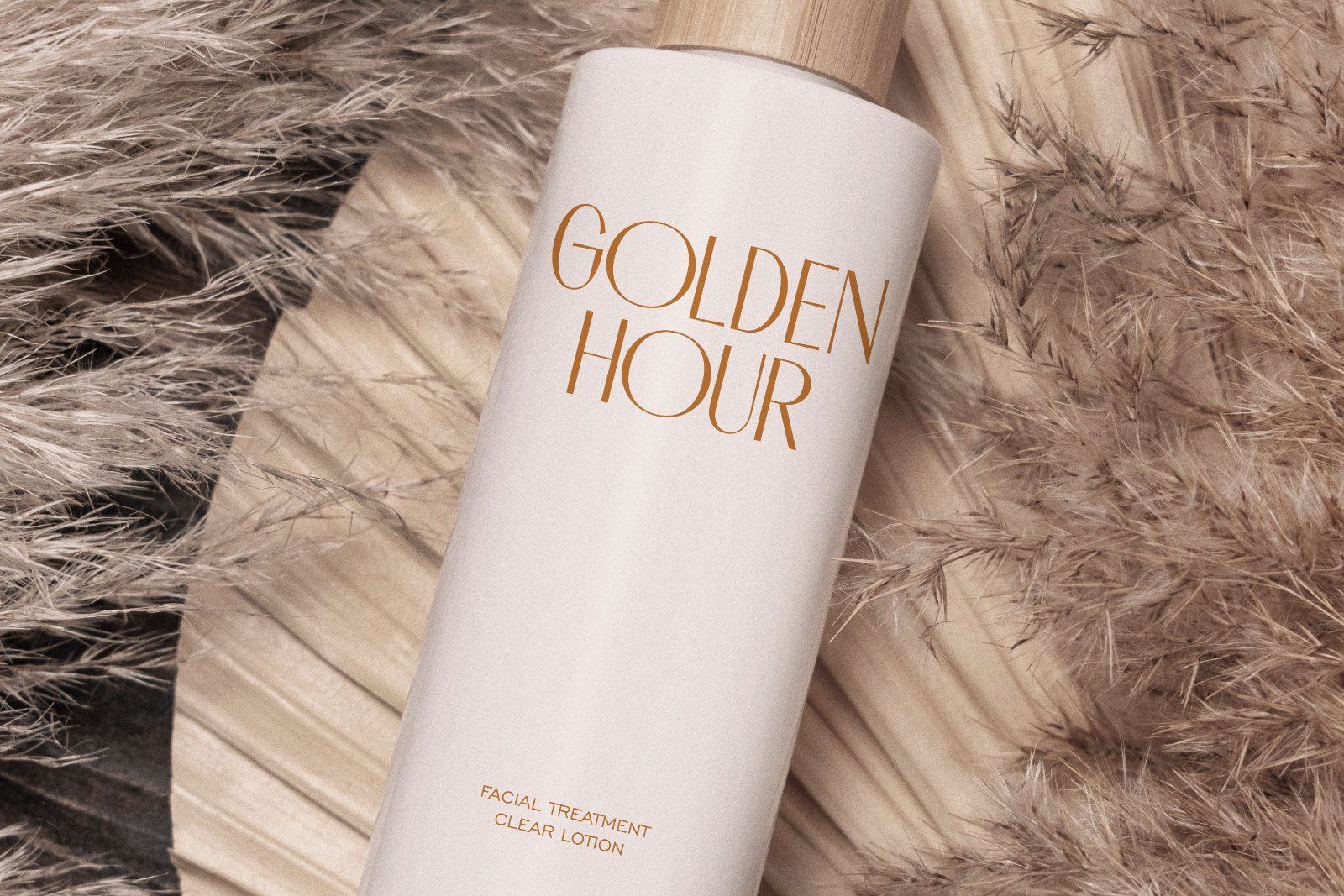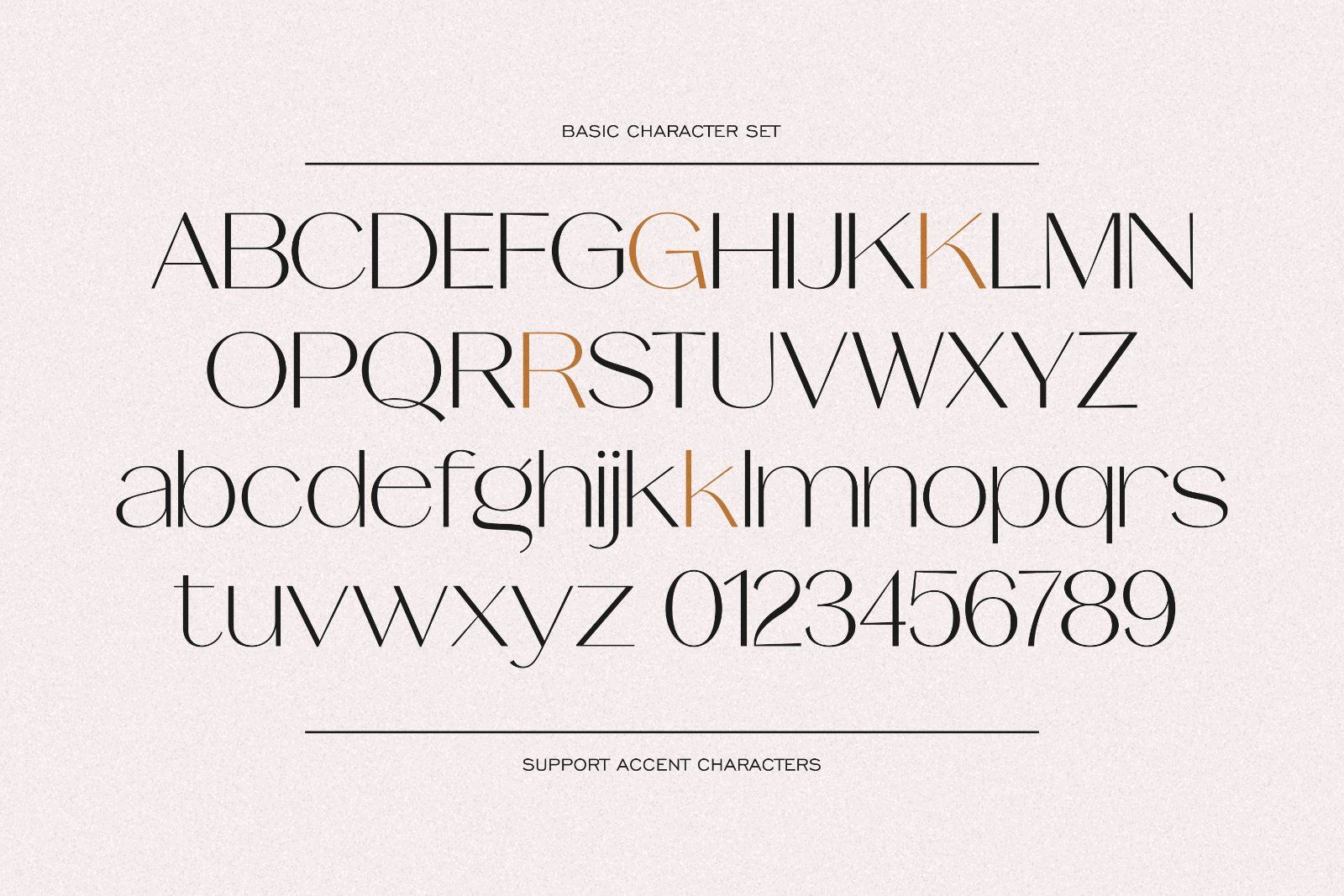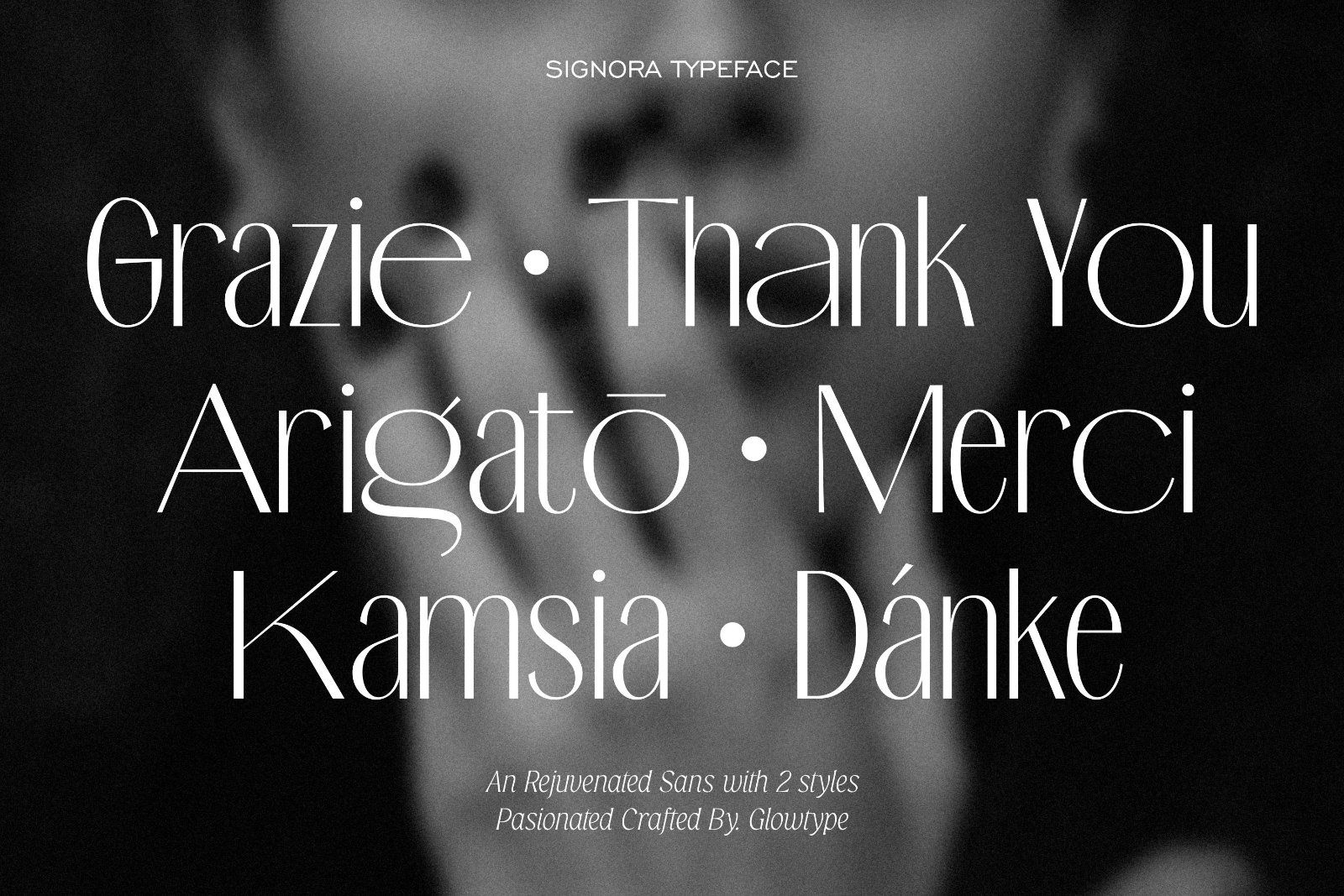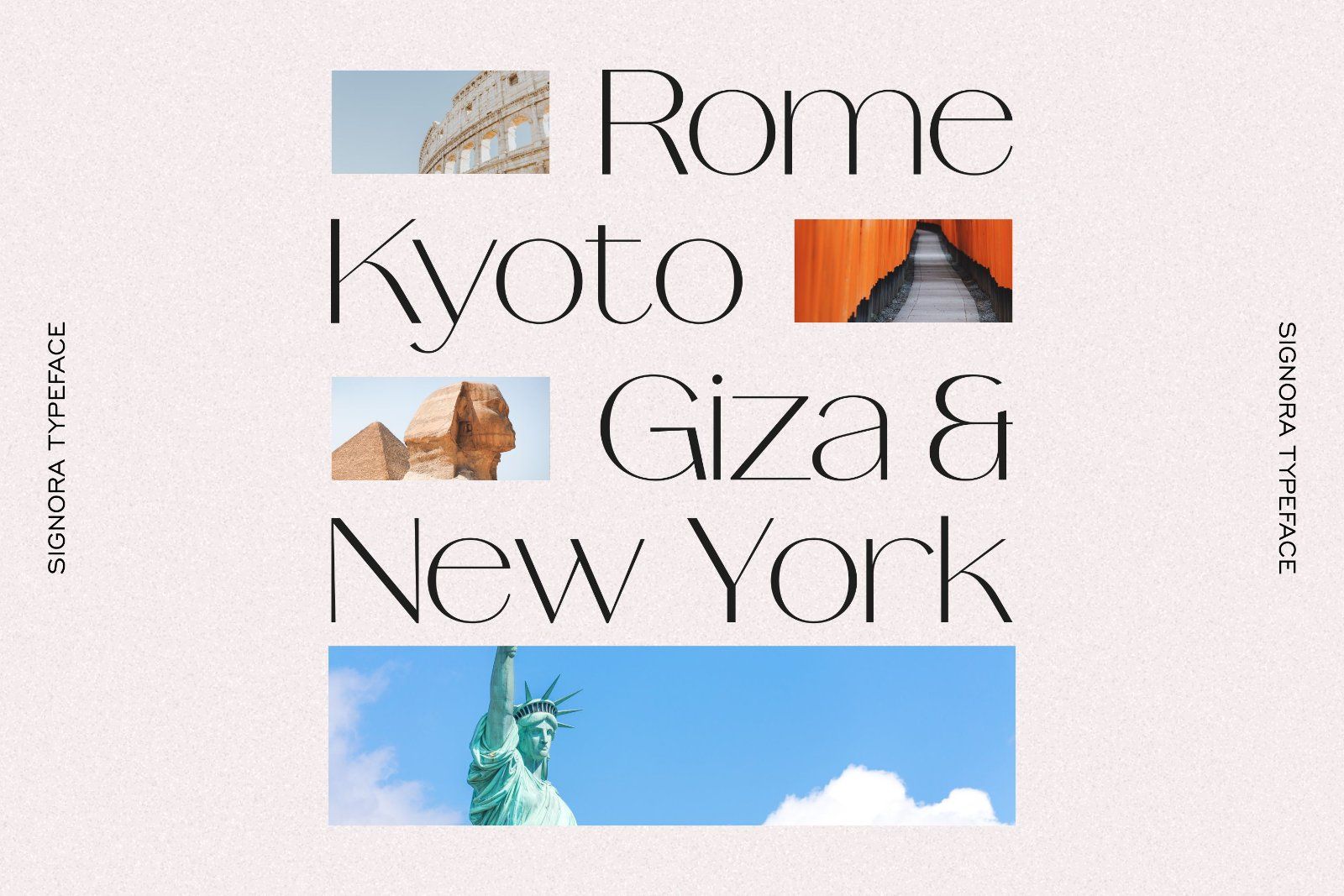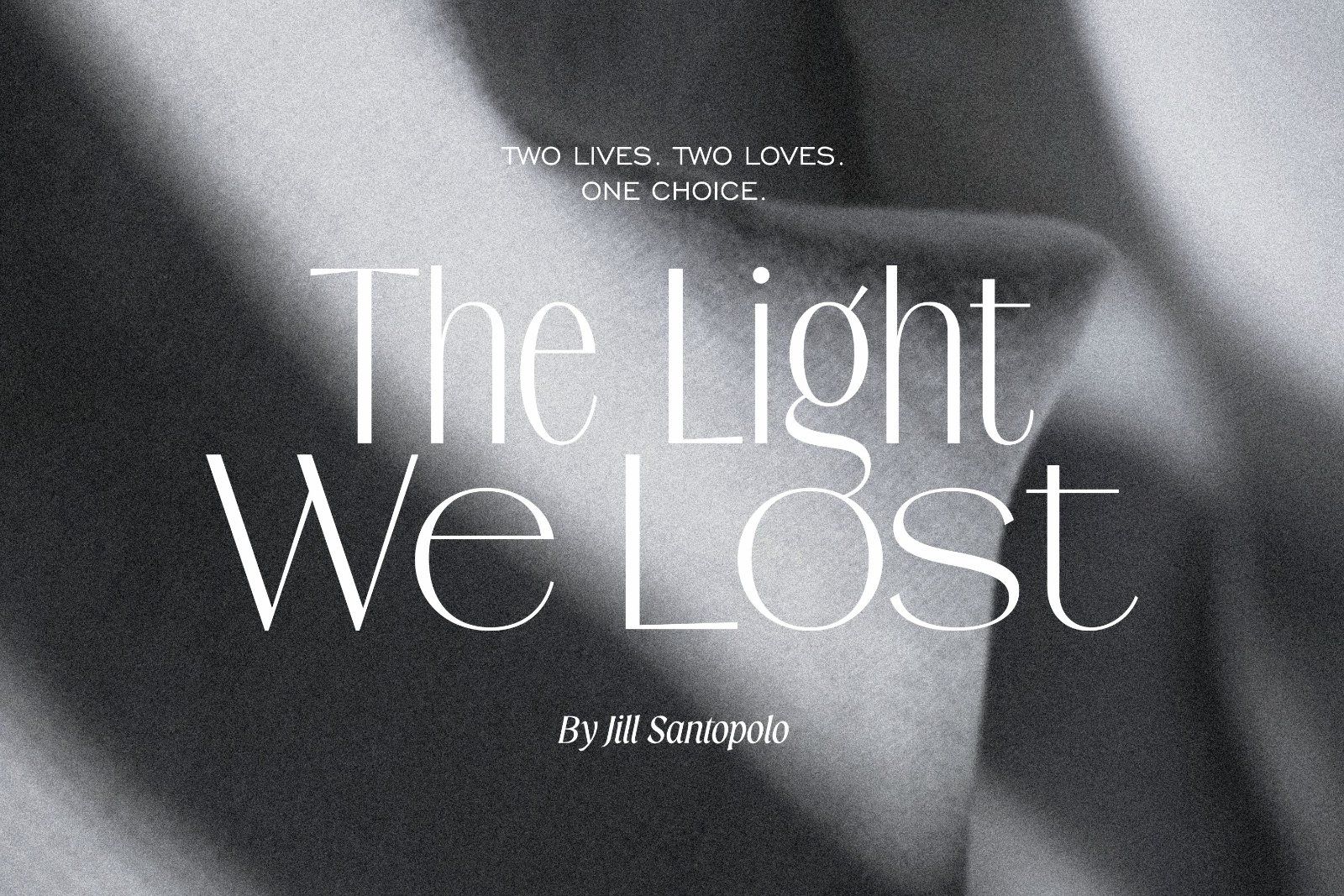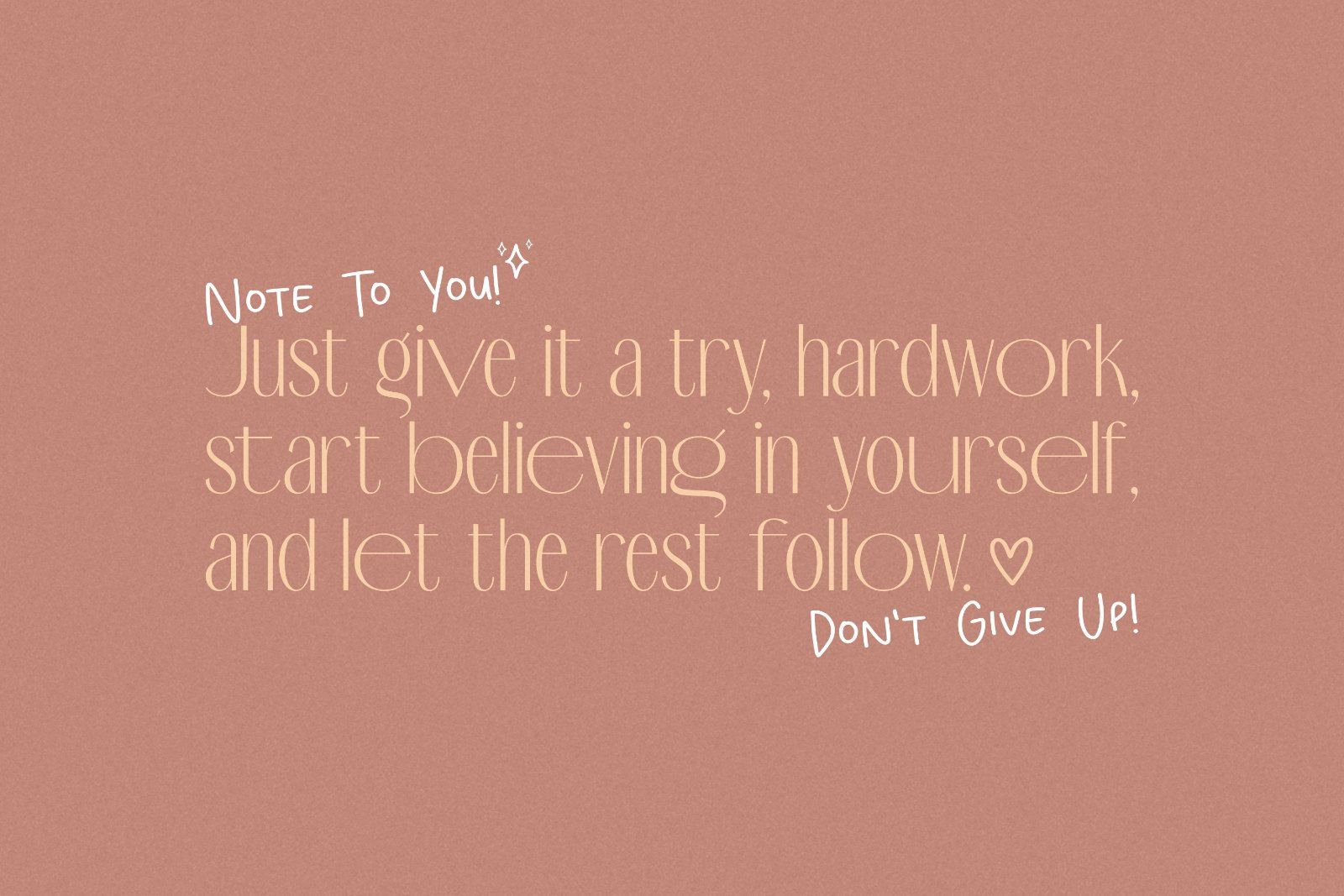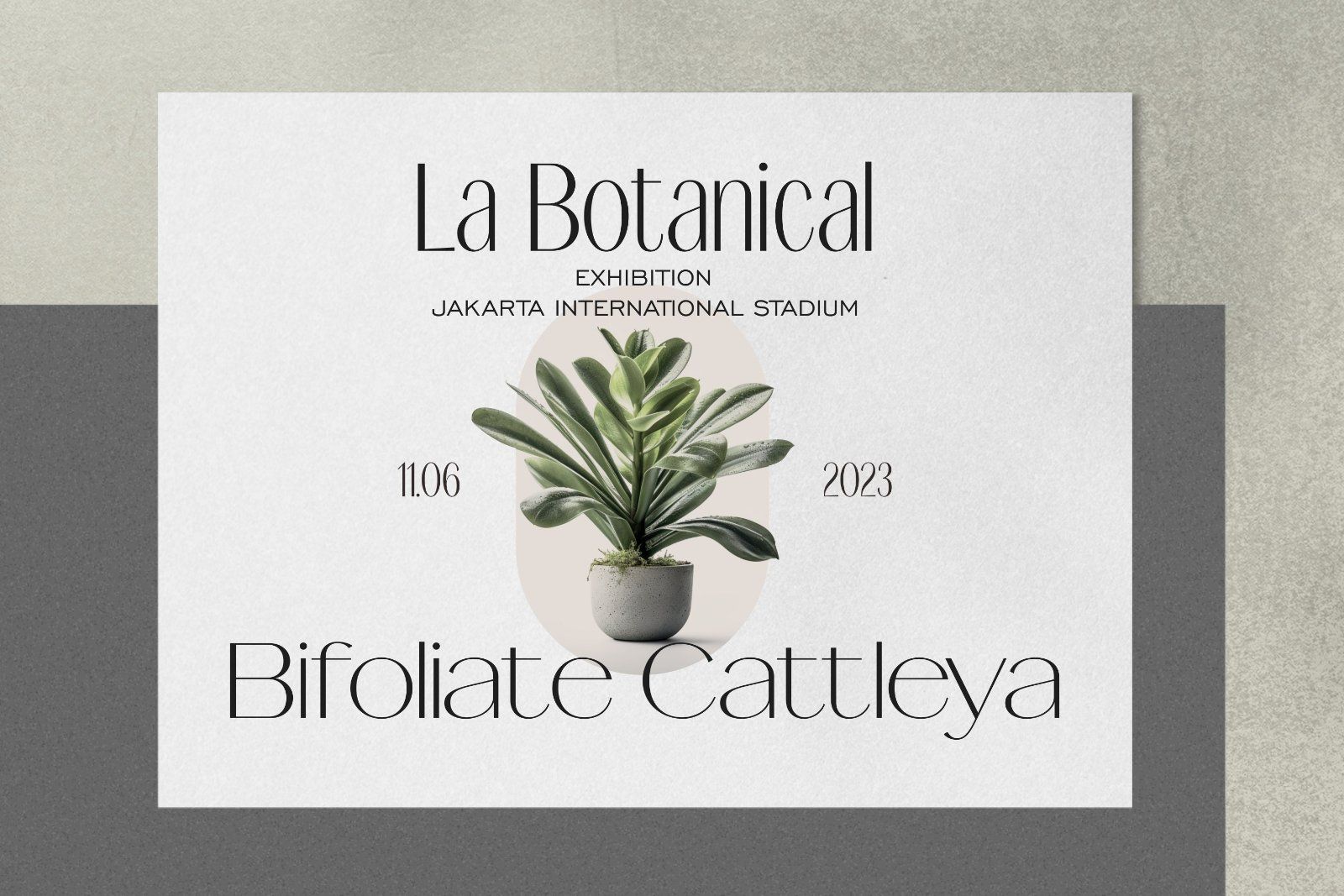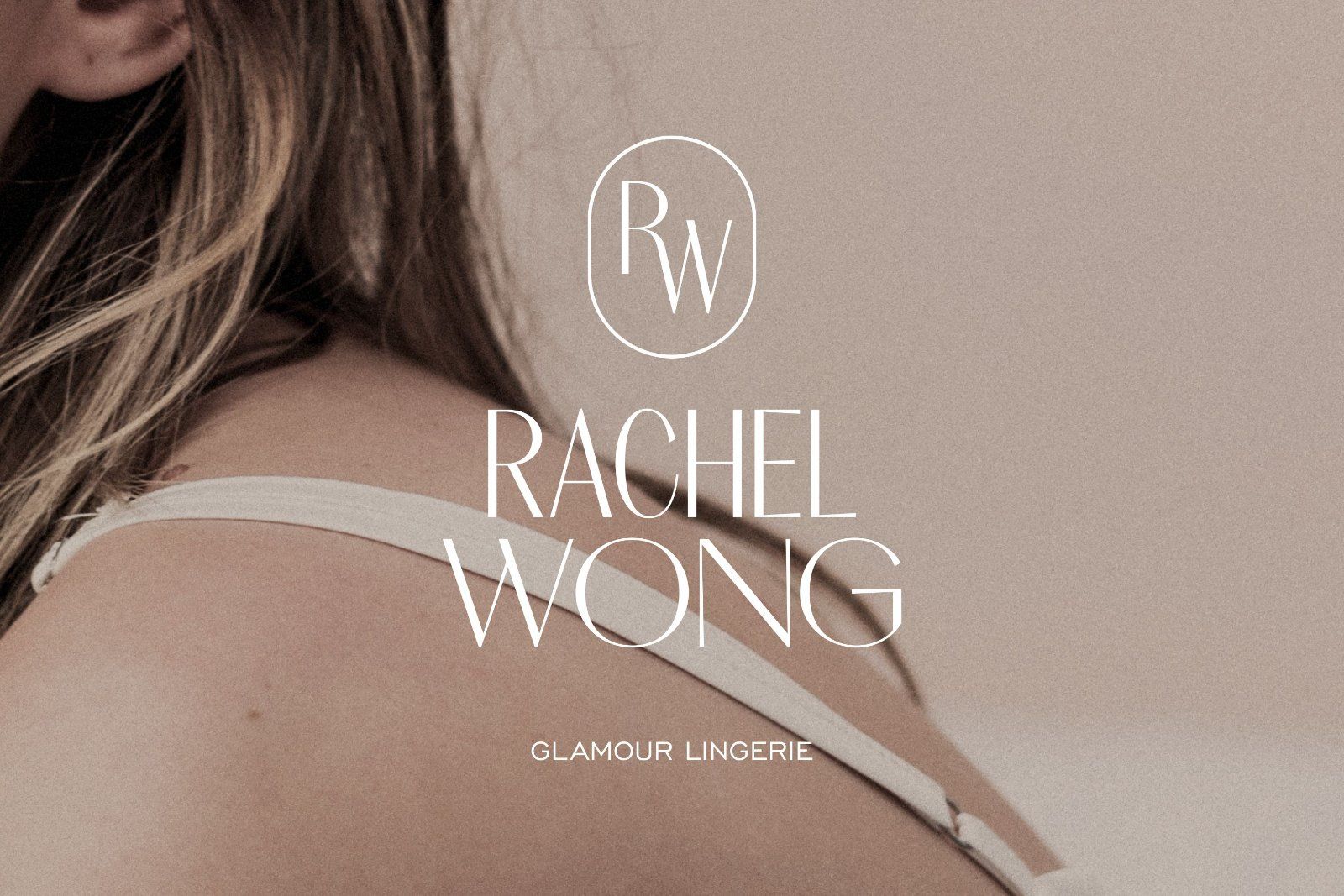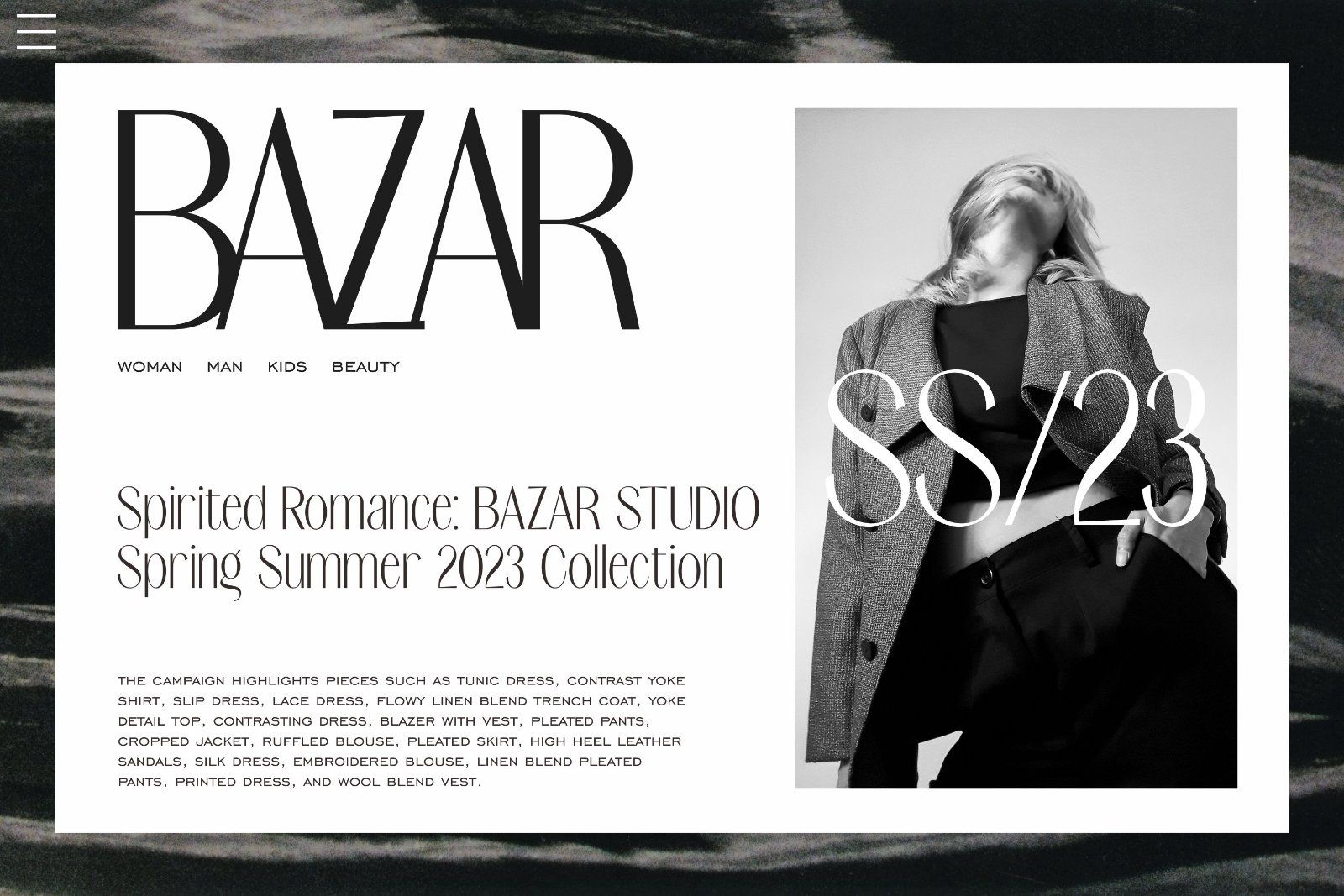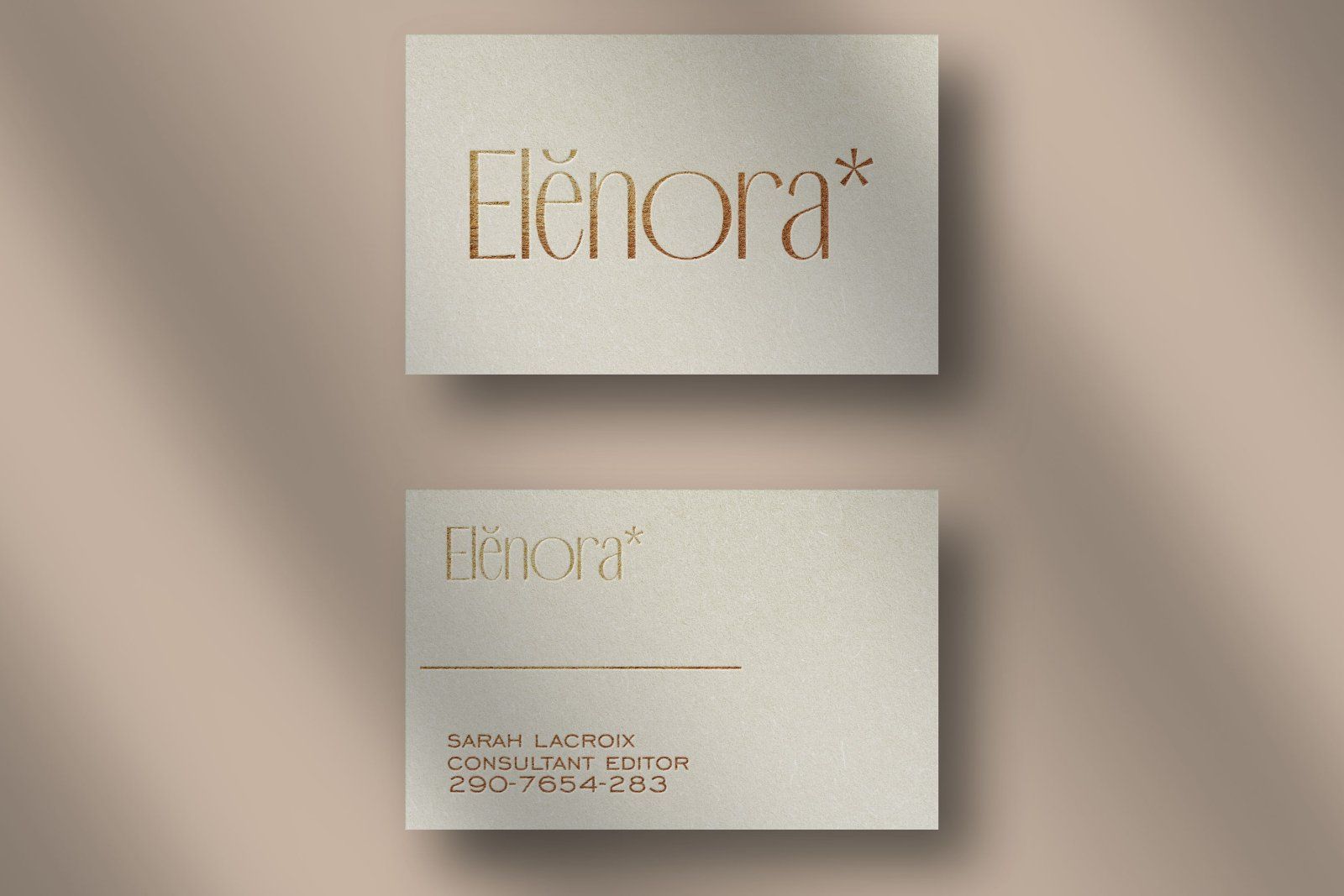
Introducing my 4th project, Signora Typeface a rejuvenated sans to give the beauty, elegance and glamor vibes.
Signora Typeface come with two styles, regular and wide. So you can combo them as you want. This is perfect choice to your crative field, branding, stationery, beauty product, magazine, wedding invitation or anything else.